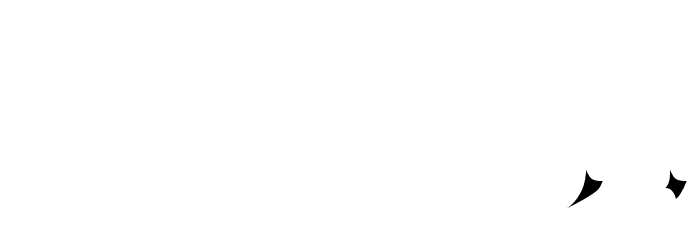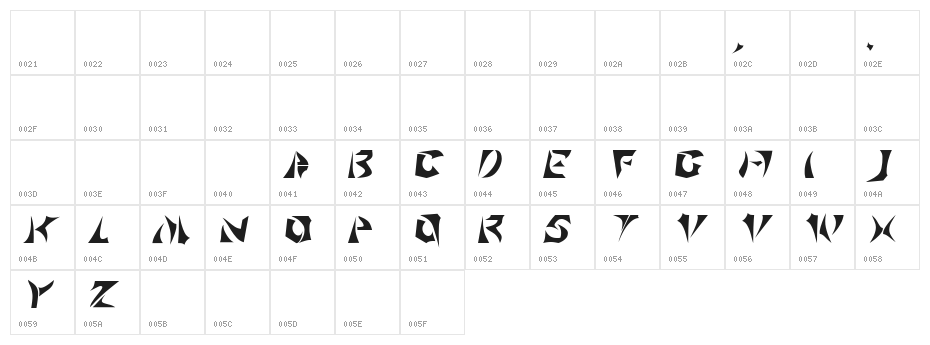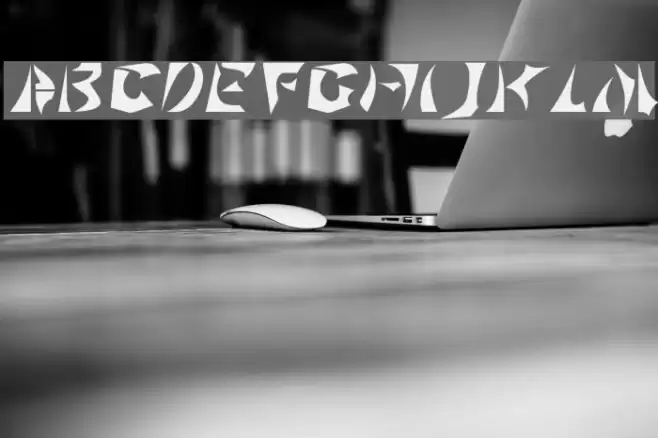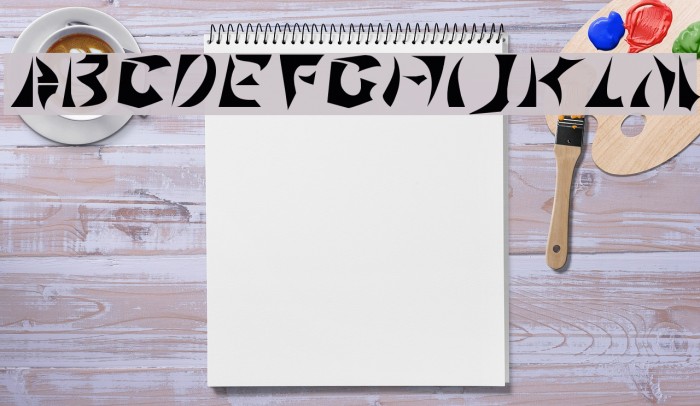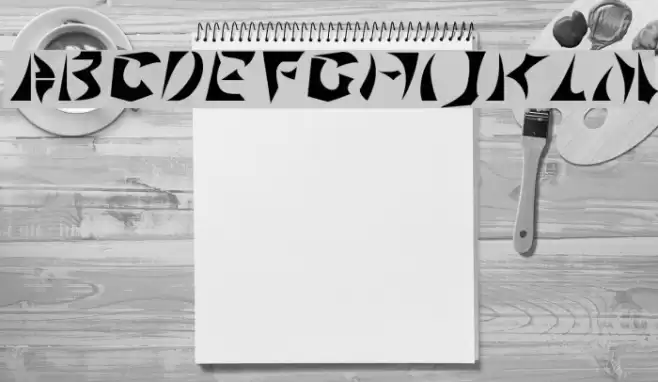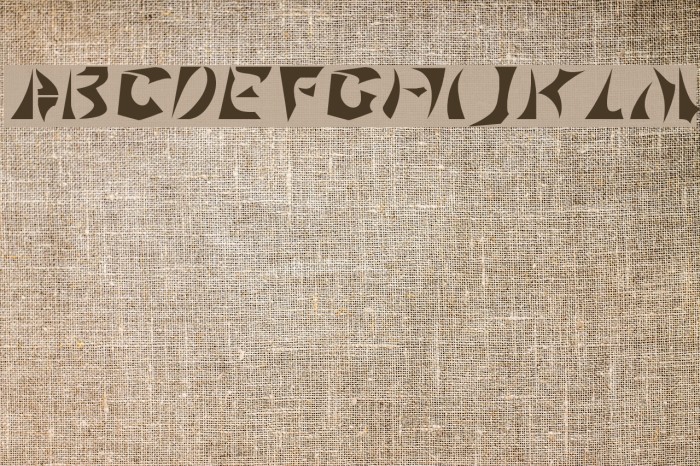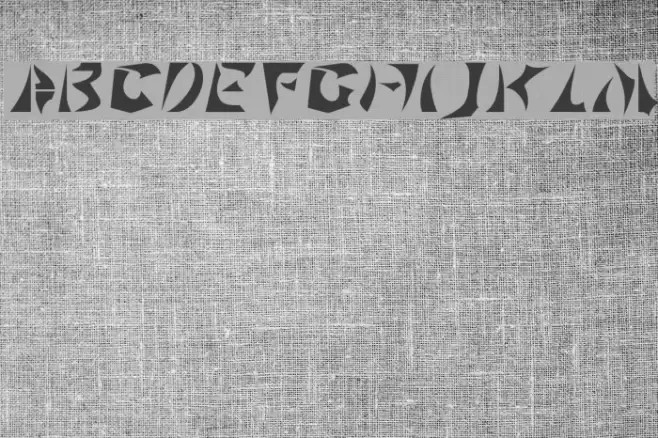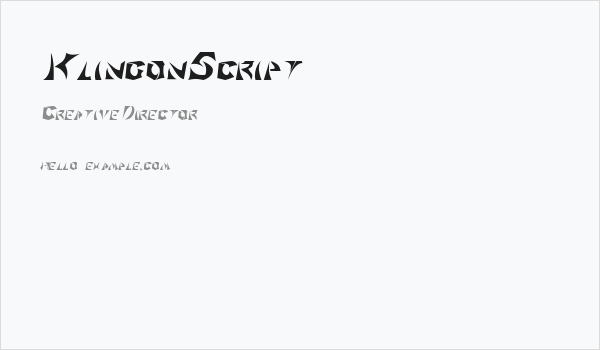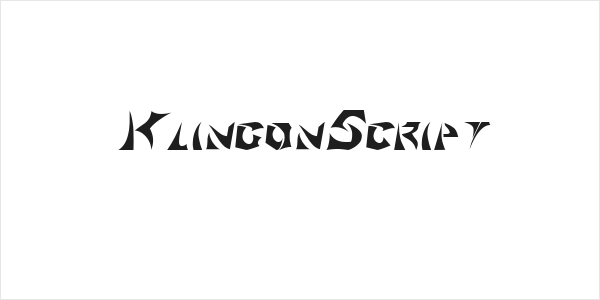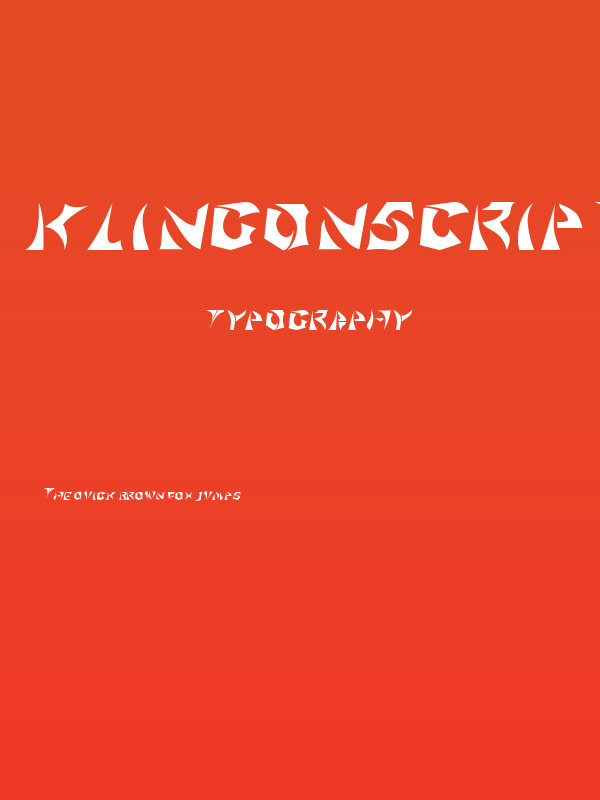
KlingonScript Font
KlingonScript Description
This font features a bold, angular design with sharp edges and a futuristic aesthetic. The characters are highly stylized, resembling a script from a science fiction universe. The uppercase and lowercase letters maintain a consistent theme, with intricate cuts and pointed ends that give the font a dynamic and aggressive appearance. The numbers and special characters follow the same design principles, ensuring uniformity across the character set. This font is ideal for projects that require a strong, unconventional look, such as gaming titles, movie posters, or themed events.
| Overall Style | Futuristic, Sci-Fi |
| Proposed Projects | Ideal for gaming titles, sci-fi movie posters, themed events, and branding that requires a strong, unique look. |